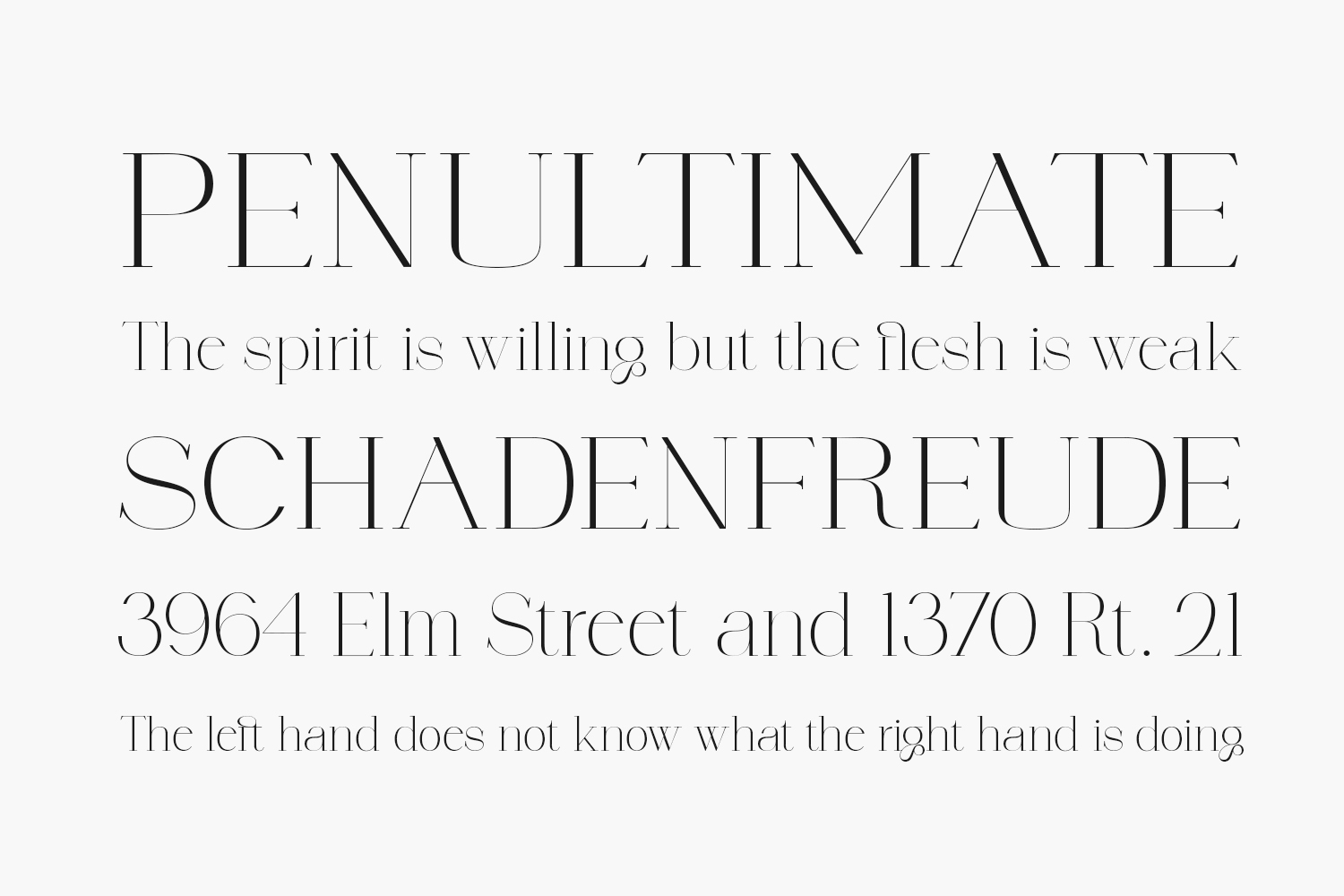
Polyglot Neue Free Font is a versatile and expressive typeface that seamlessly blends tradition with modernity. Its elegant serifs and refined letterforms evoke a sense of classic sophistication, while its bold, contemporary lines convey a fresh and dynamic energy. Designed with polyglots in mind, this font supports a wide range of languages, making it an ideal choice for international communication and creative expression. Whether you’re crafting a marketing campaign, designing a book cover, or simply writing a letter, Serif Polyglot Neue Free Font is sure to elevate your message and captivate your audience.